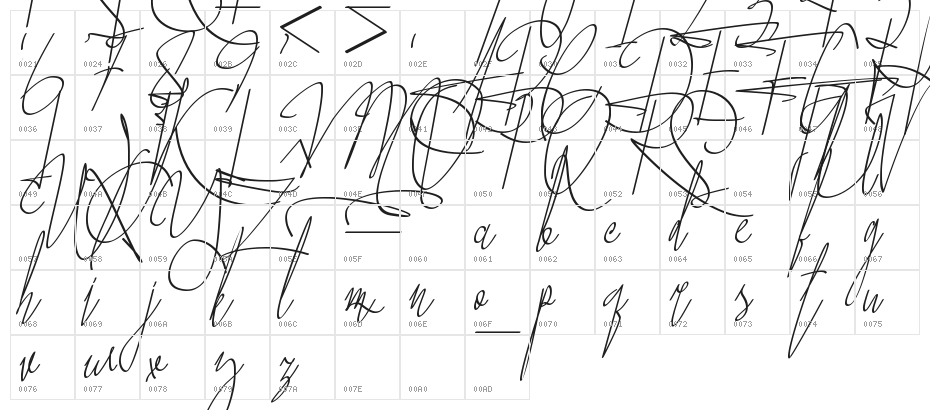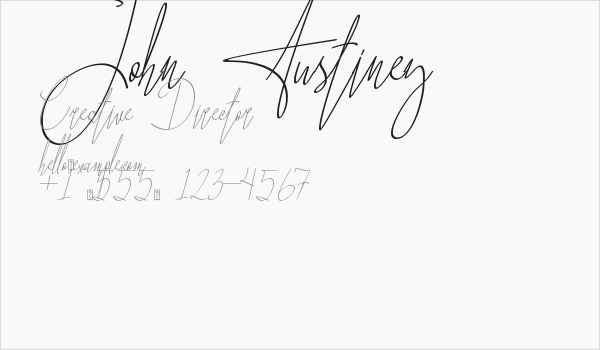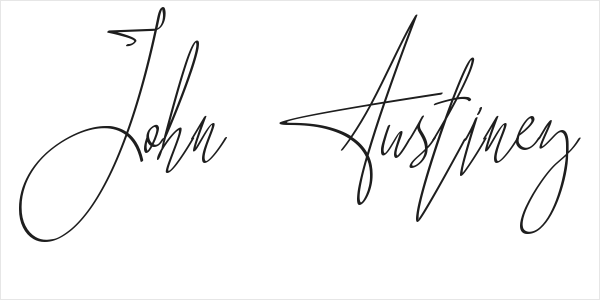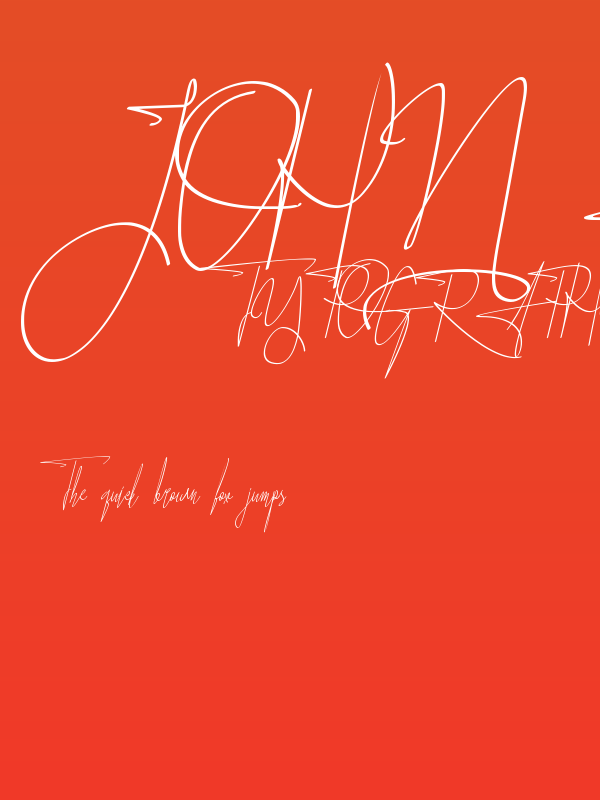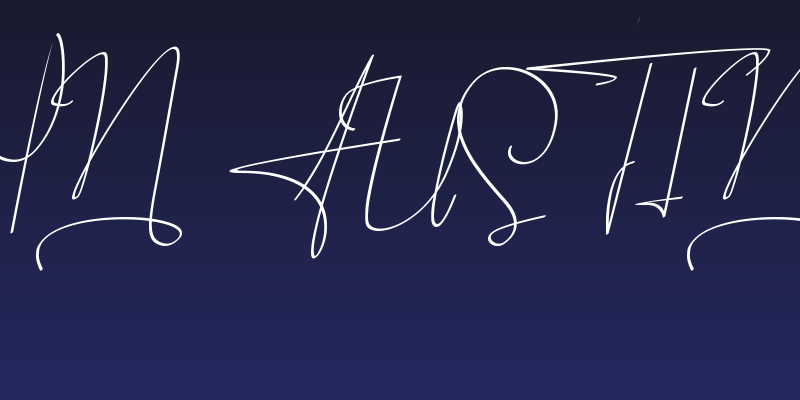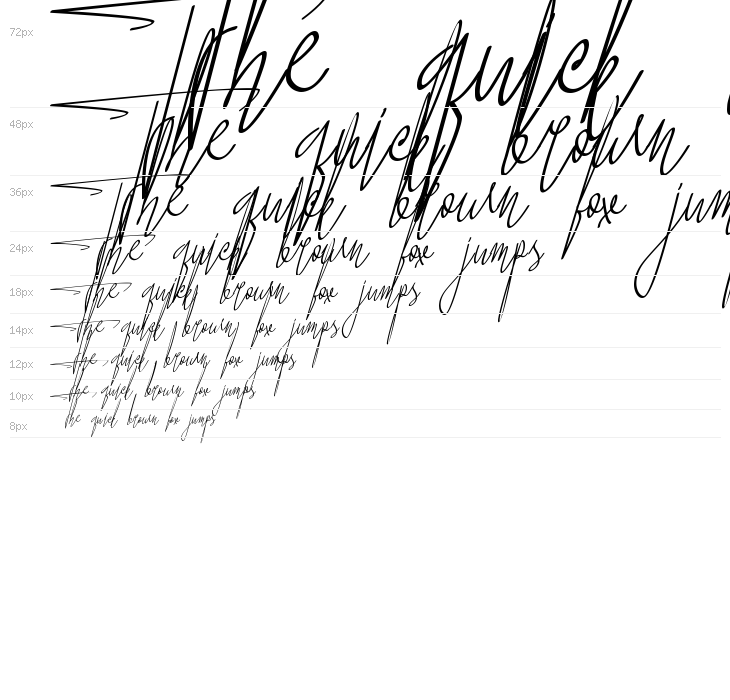
John Austiney Font
John Austiney Description
This font exhibits a sophisticated and elegant script style, characterized by its flowing, cursive letterforms. The strokes are thin and delicate, with a high contrast between thick and thin lines, giving it a refined and graceful appearance. The uppercase letters are ornate and sweeping, while the lowercase letters maintain a consistent fluidity, enhancing the overall aesthetic. The numerals and special characters are designed with the same attention to detail, ensuring a cohesive look across all elements. This font is ideal for projects that require a touch of elegance and sophistication.